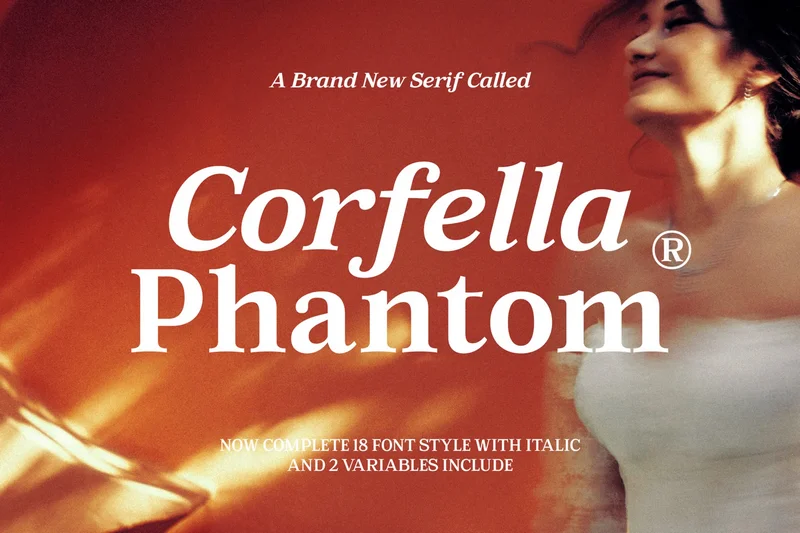
Corfella Phantom
The Corfella Phantom Font Pack is an elegant serif font available in 20 different weights.
This font is designed to reflect nature, creating a soft and natural expression.
This concept is driven by a focus on usability, to serve as a bold yet sophisticated communicator.
The Corfella Phantom character set incorporates many open type features—additional symbols, both standard and optional, as well as punctuation in both upper and lower case—resulting in a stable character set ready to handle projects of any size.